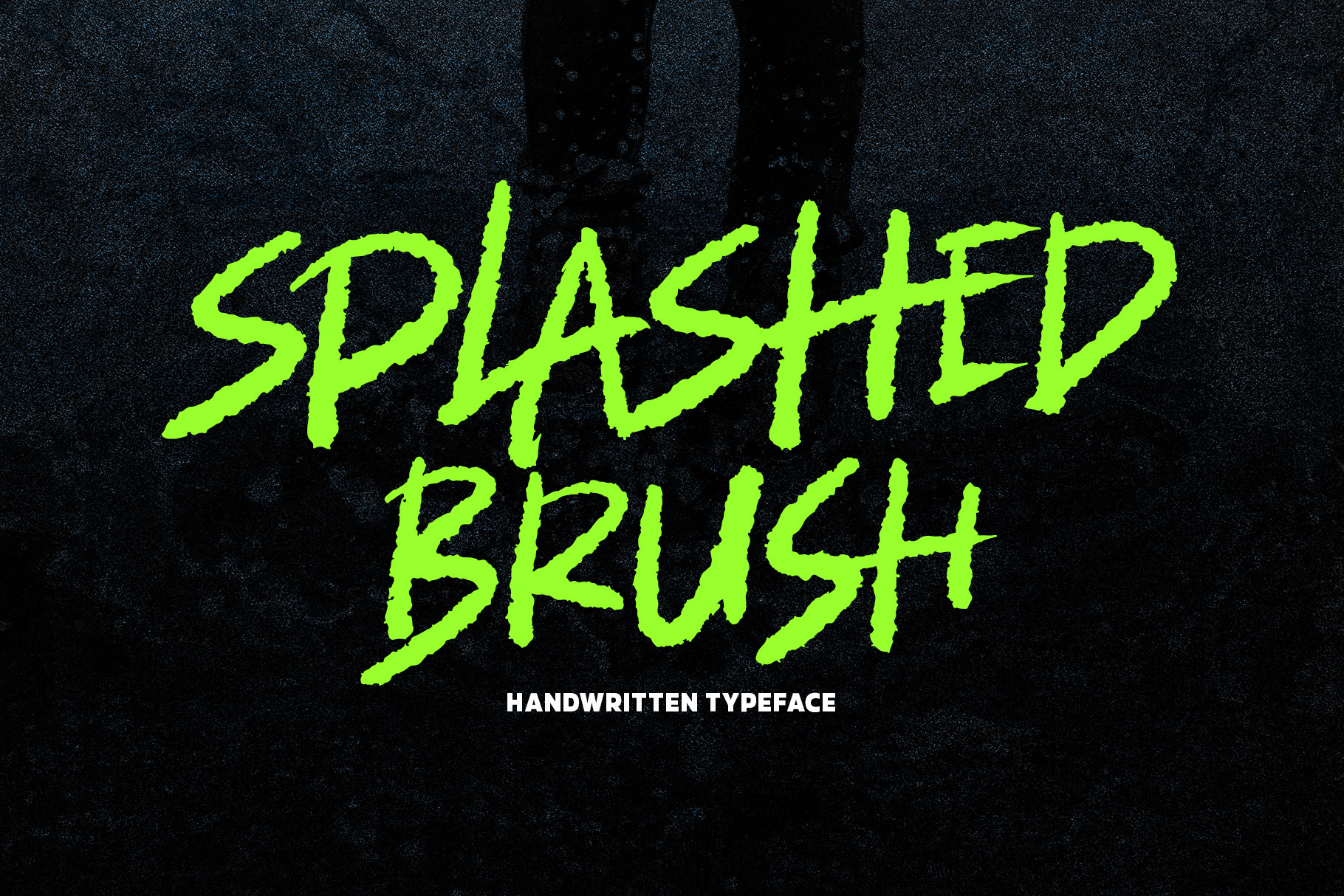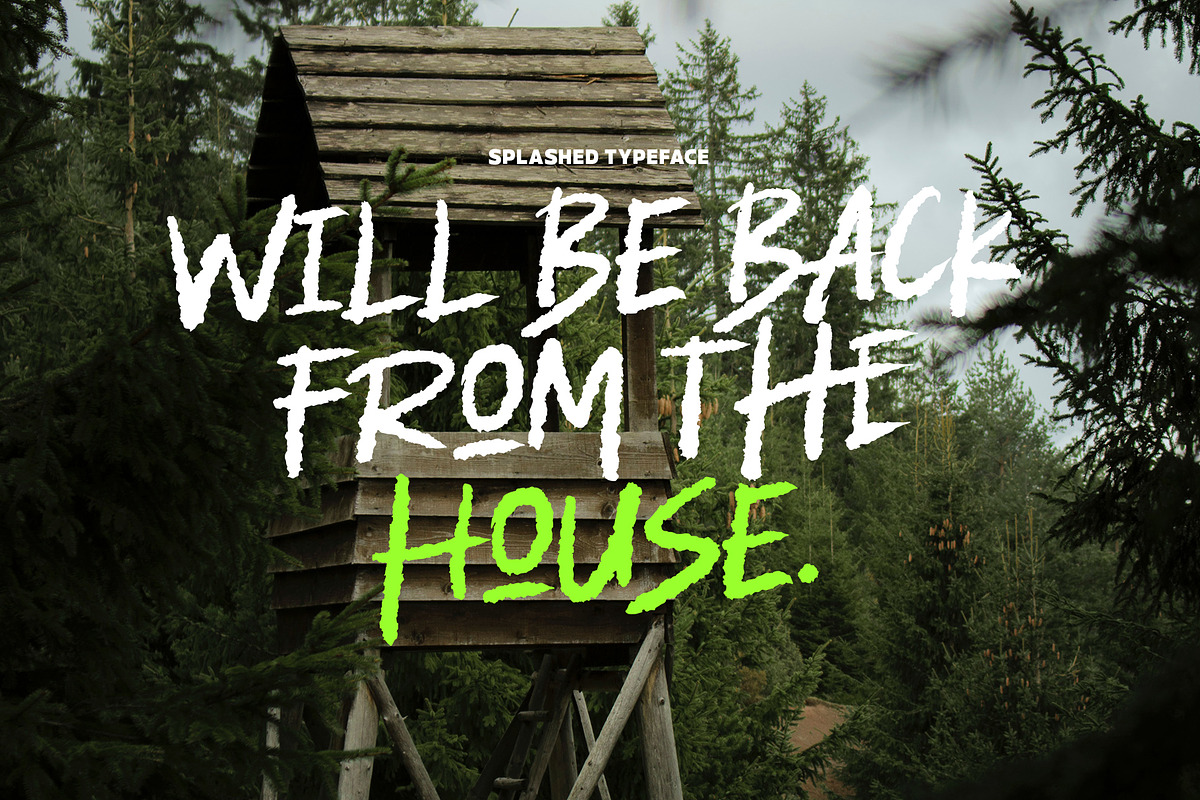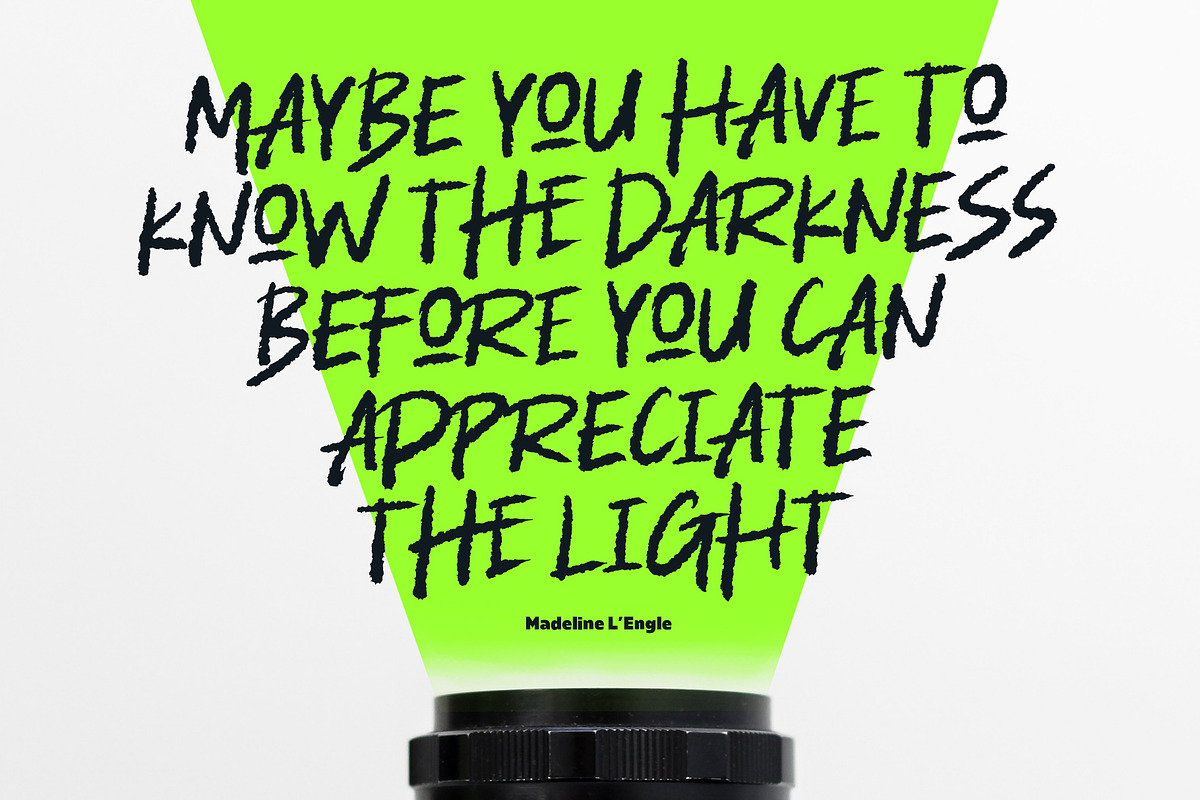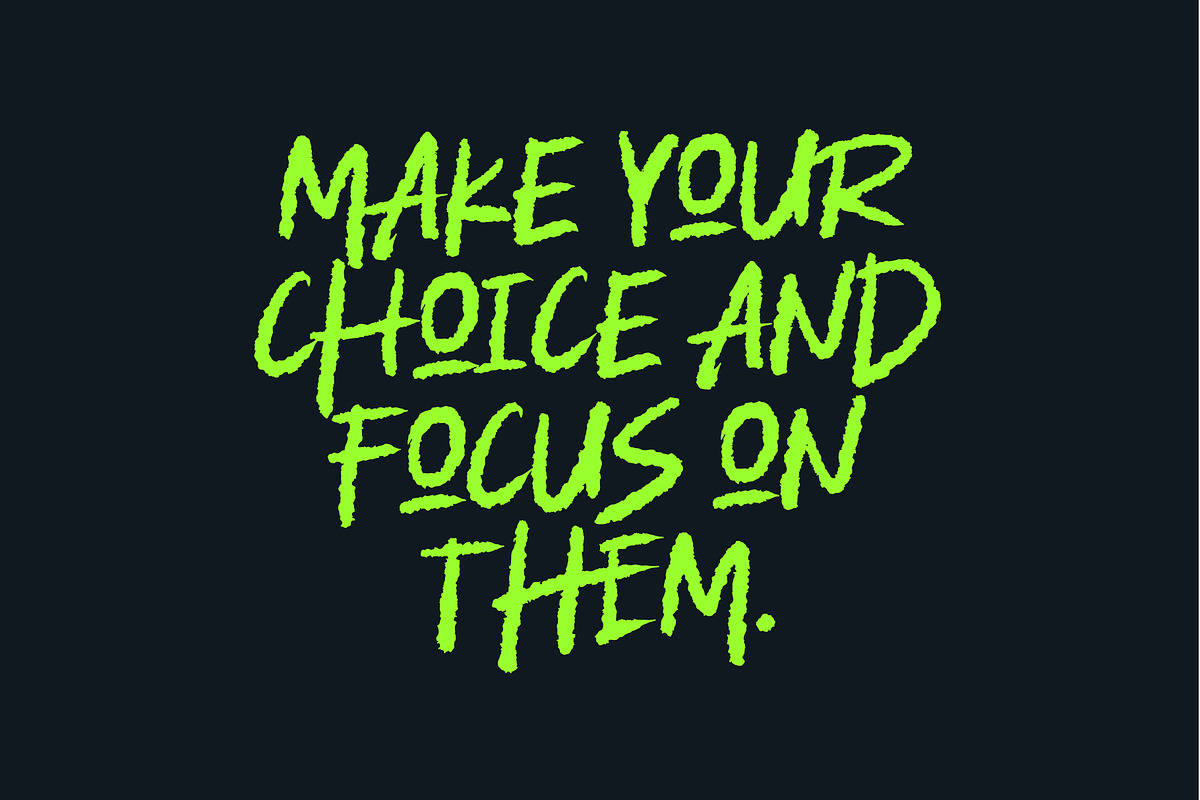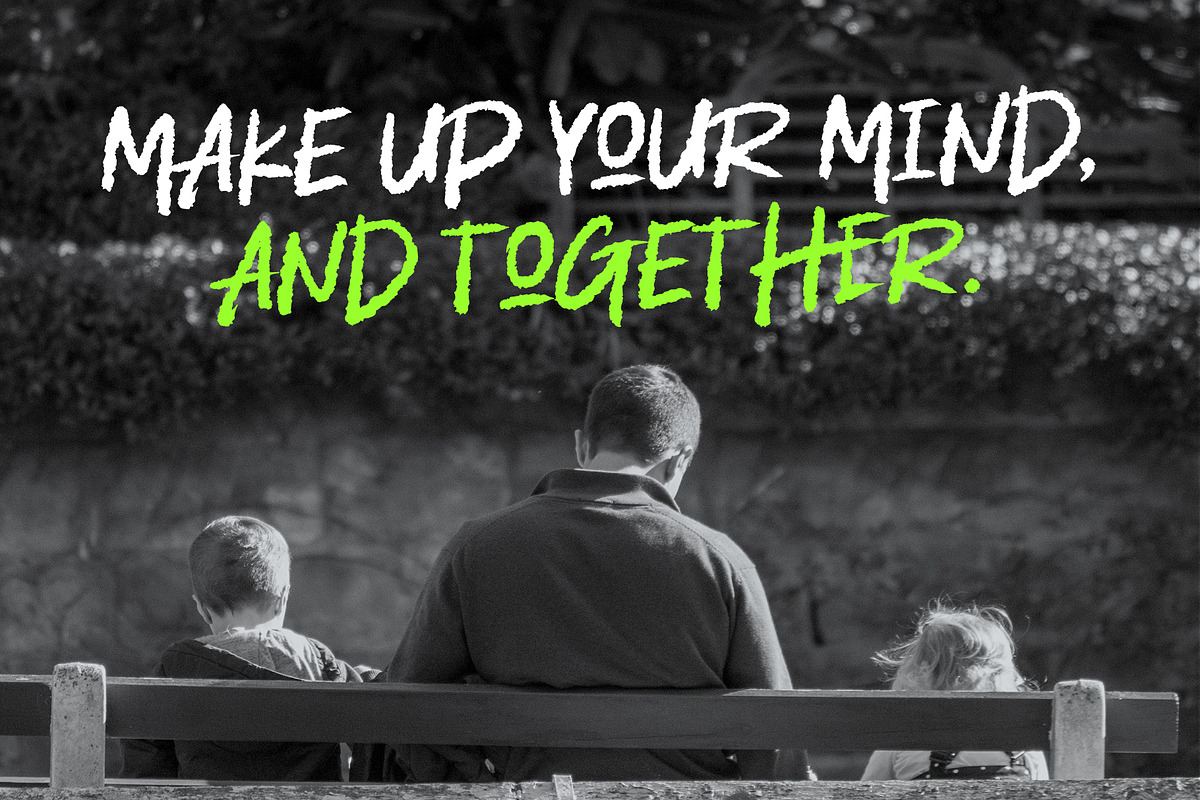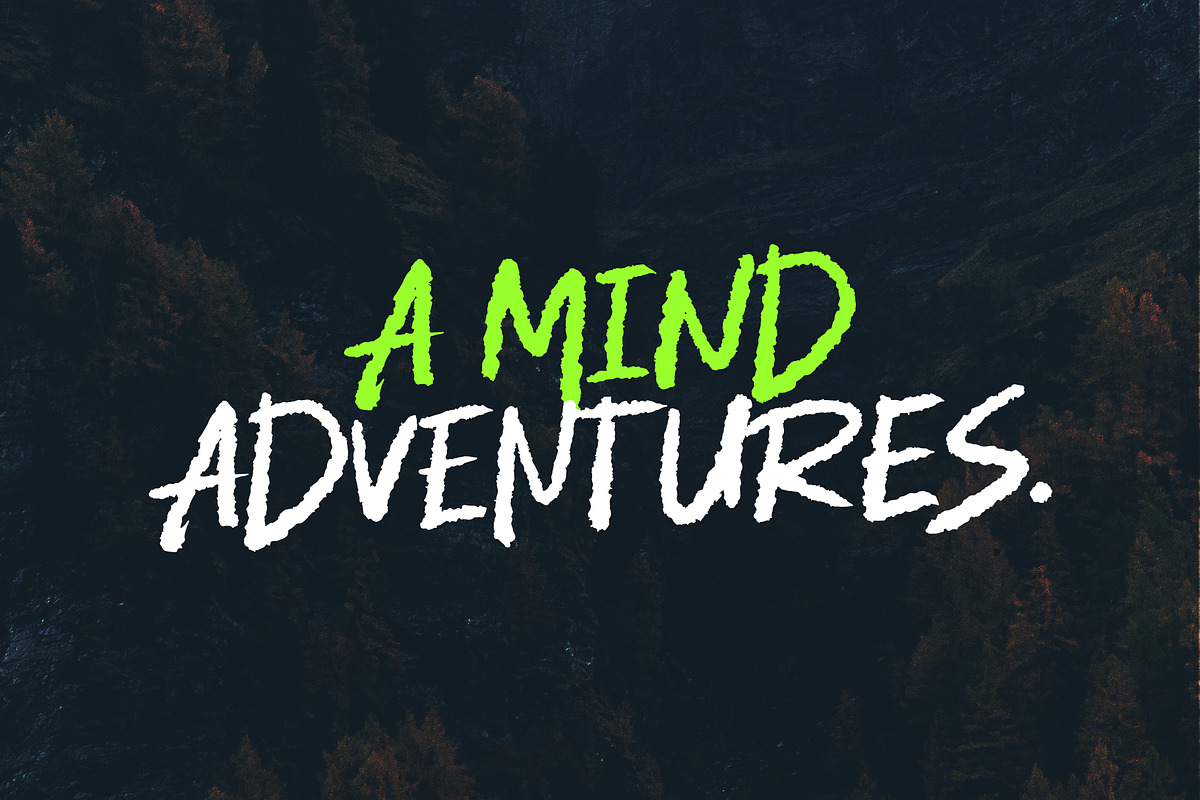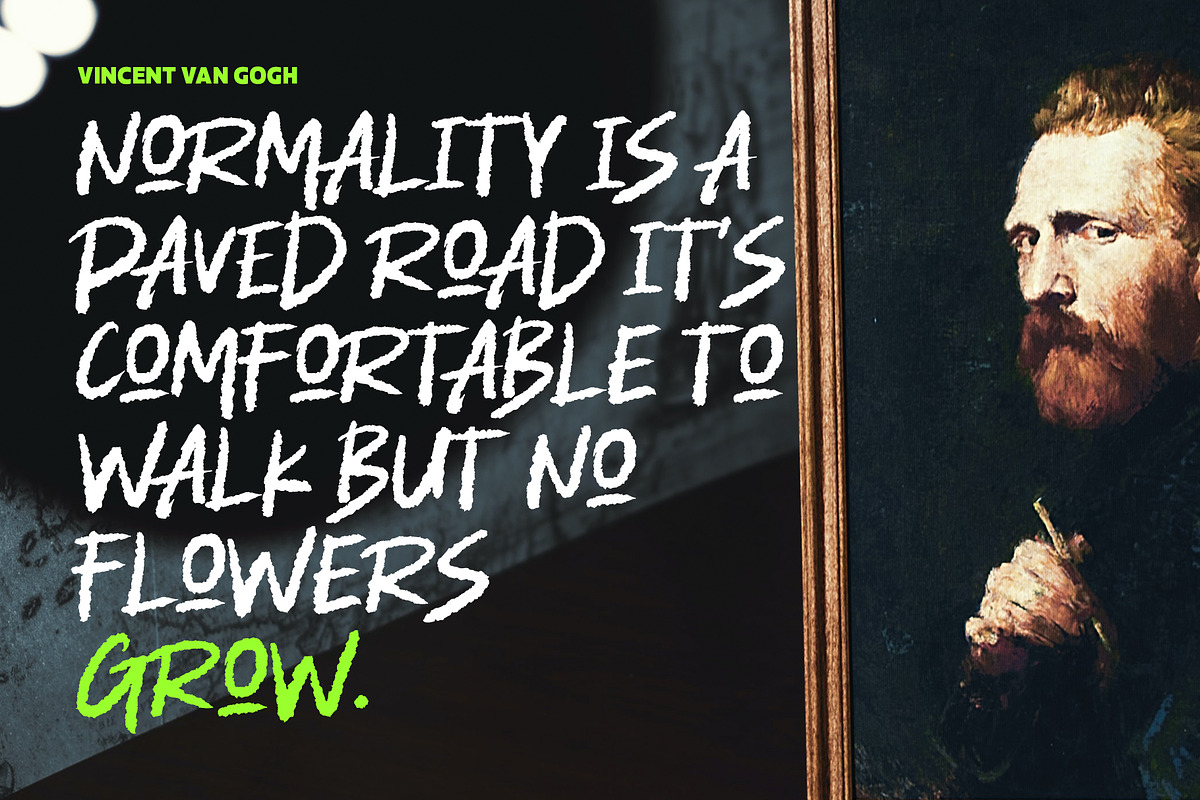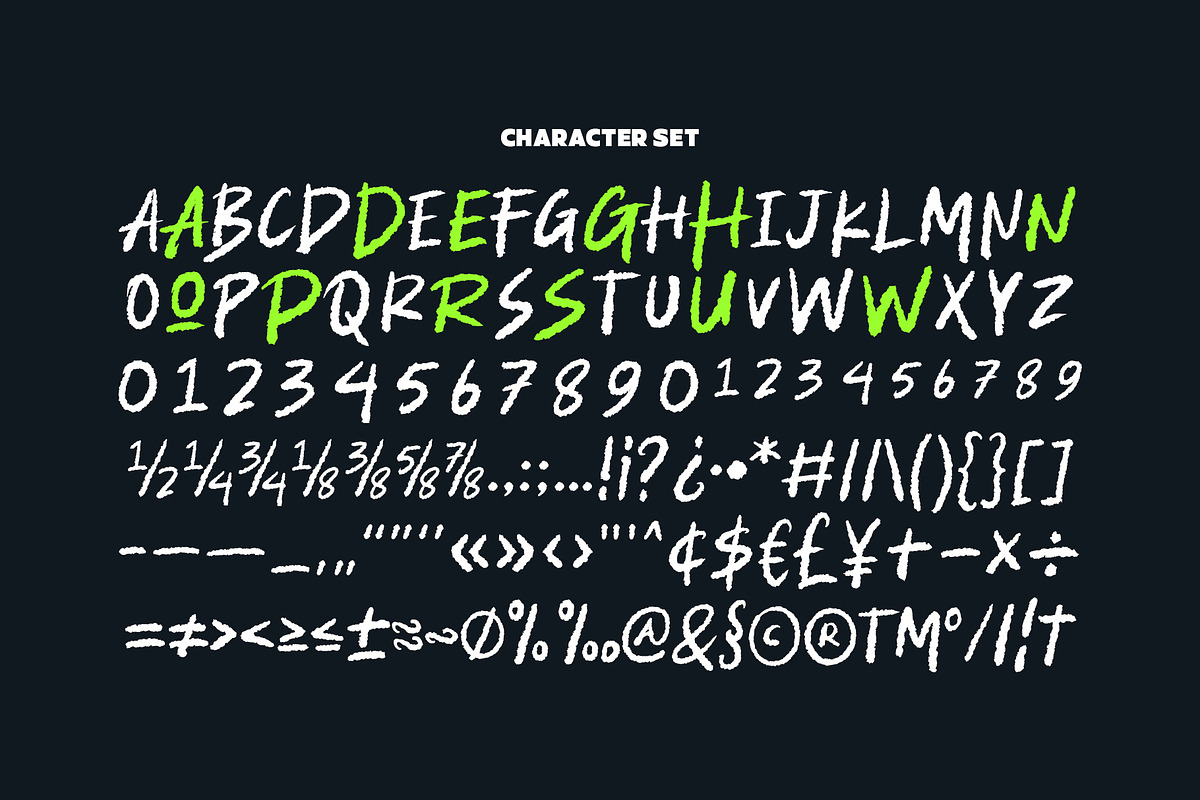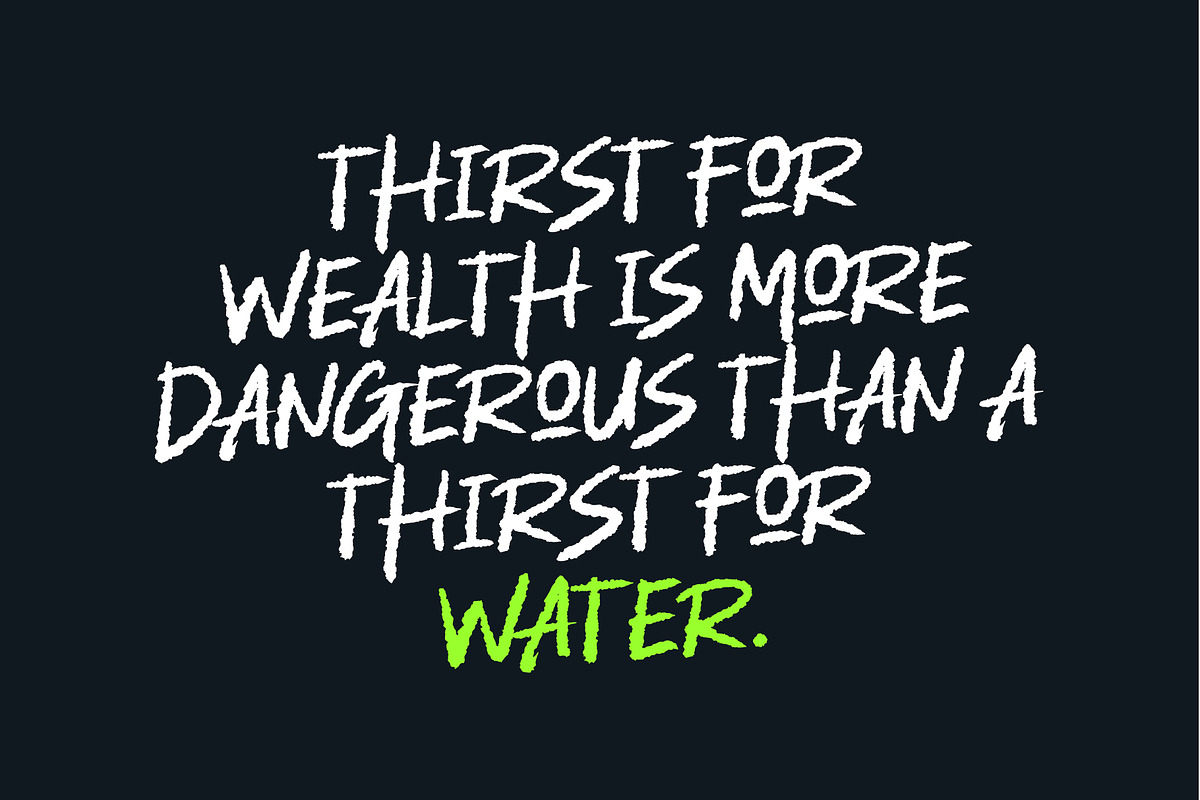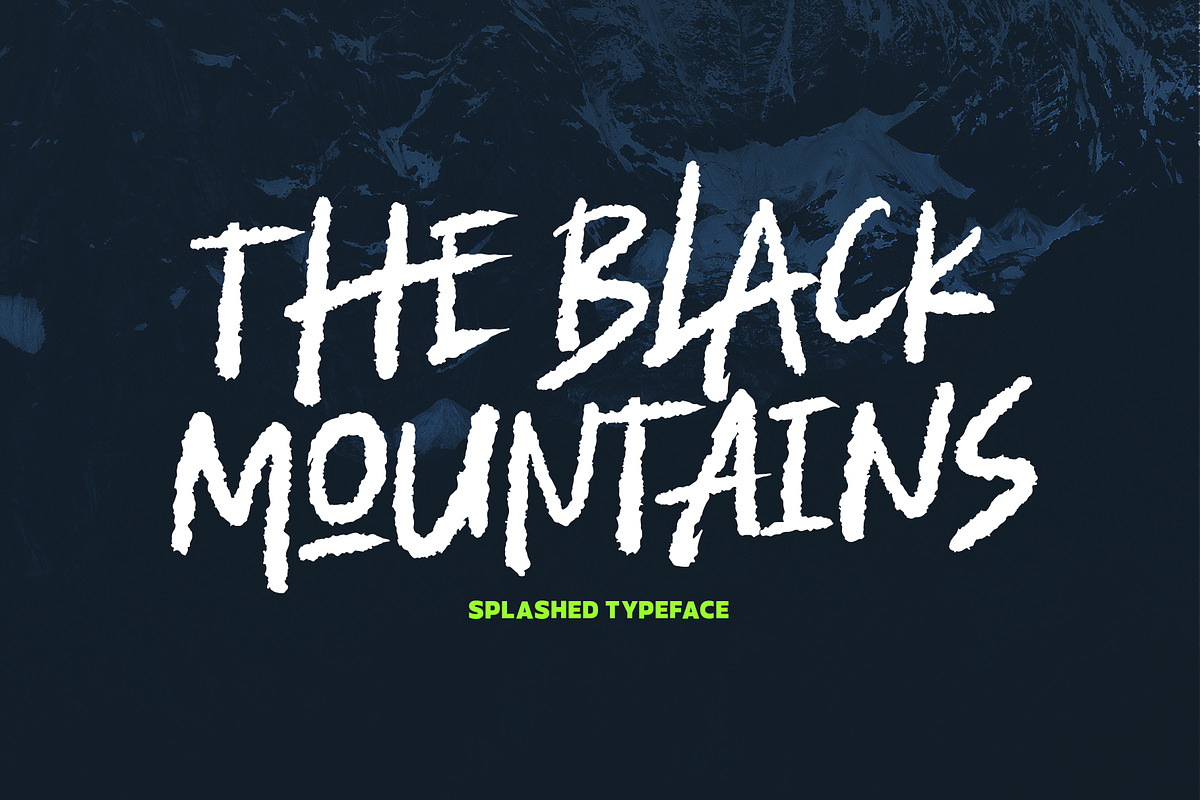
Splashed Brush Font
Splashed is a handwritten brush font with dynamic movement. Comes in 400+ glyphs. Splashed perfect for a headline, branding, advertising, and many more.
- Punctuation & symbols
- Stylistic Sets
- International characters (Multilingual)